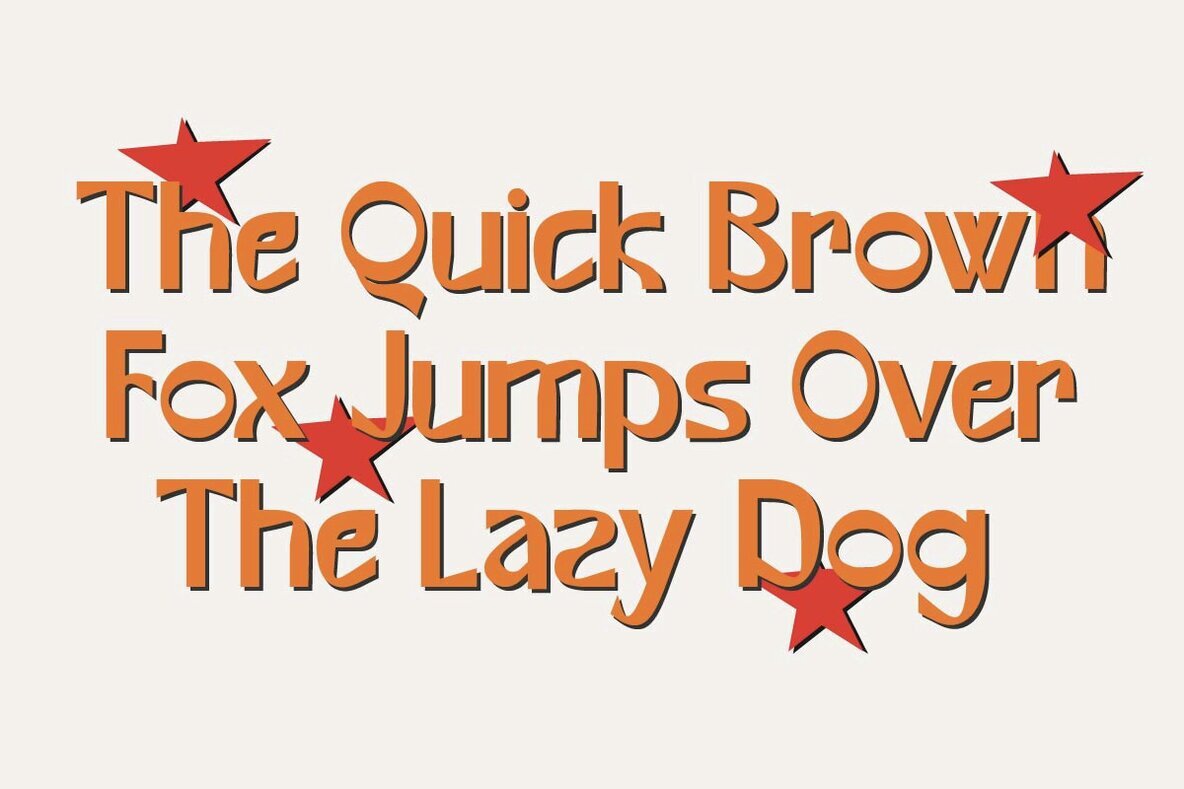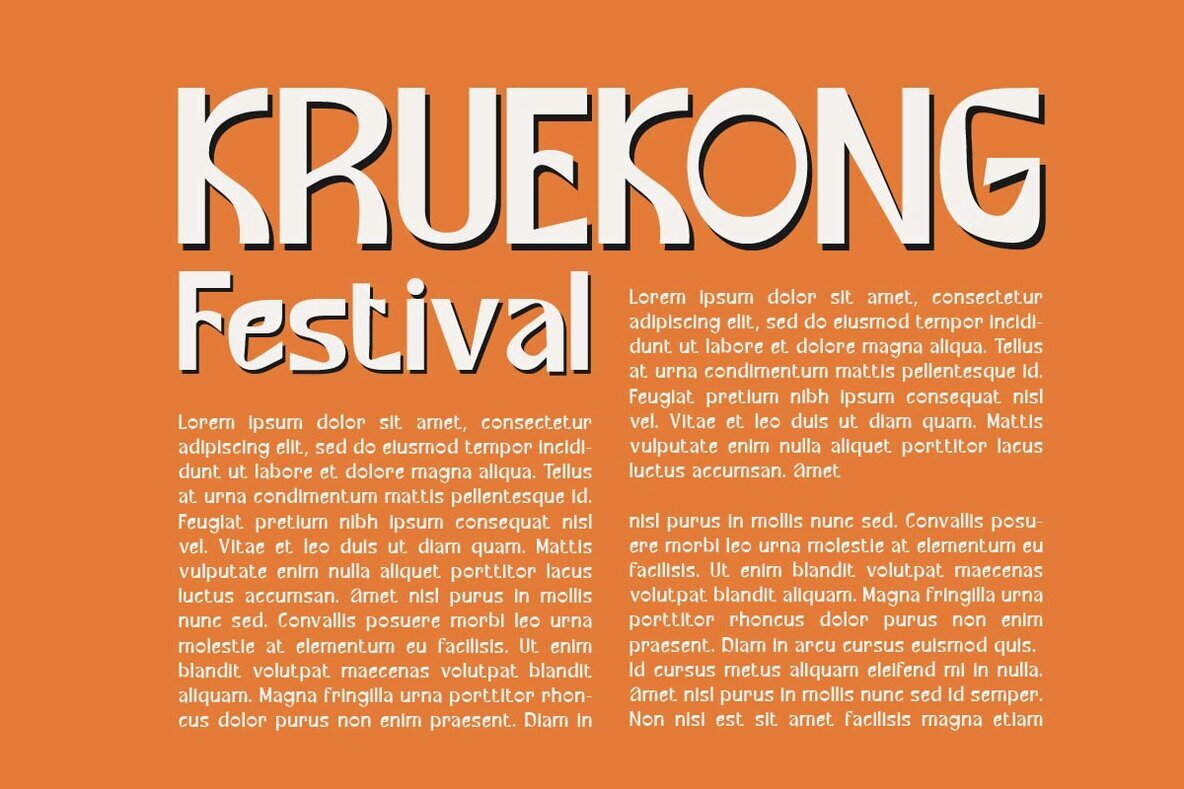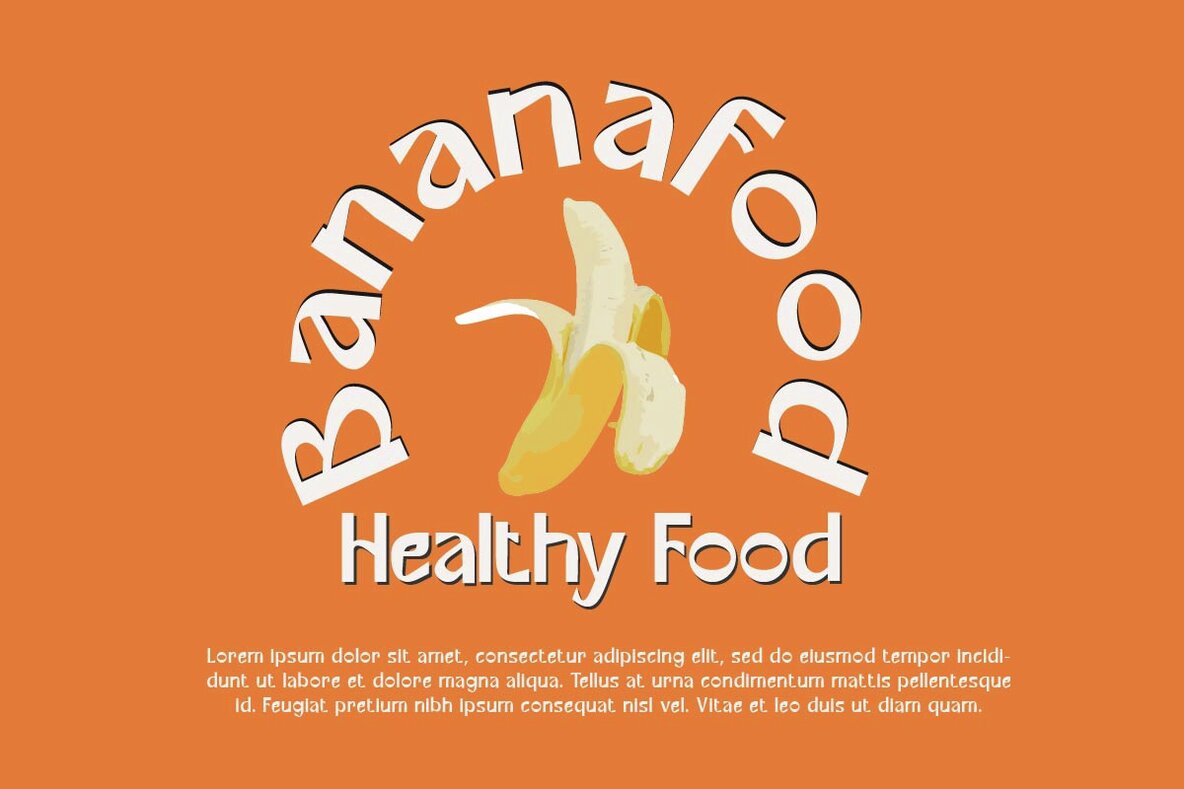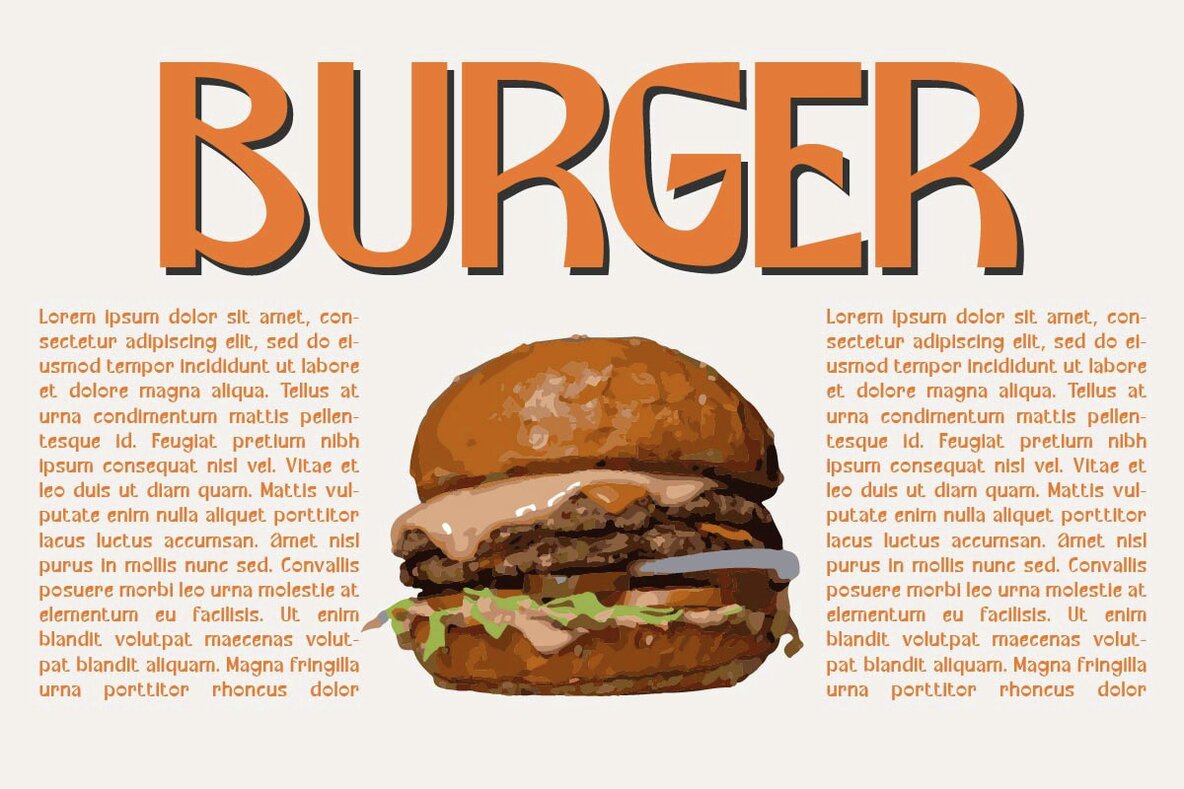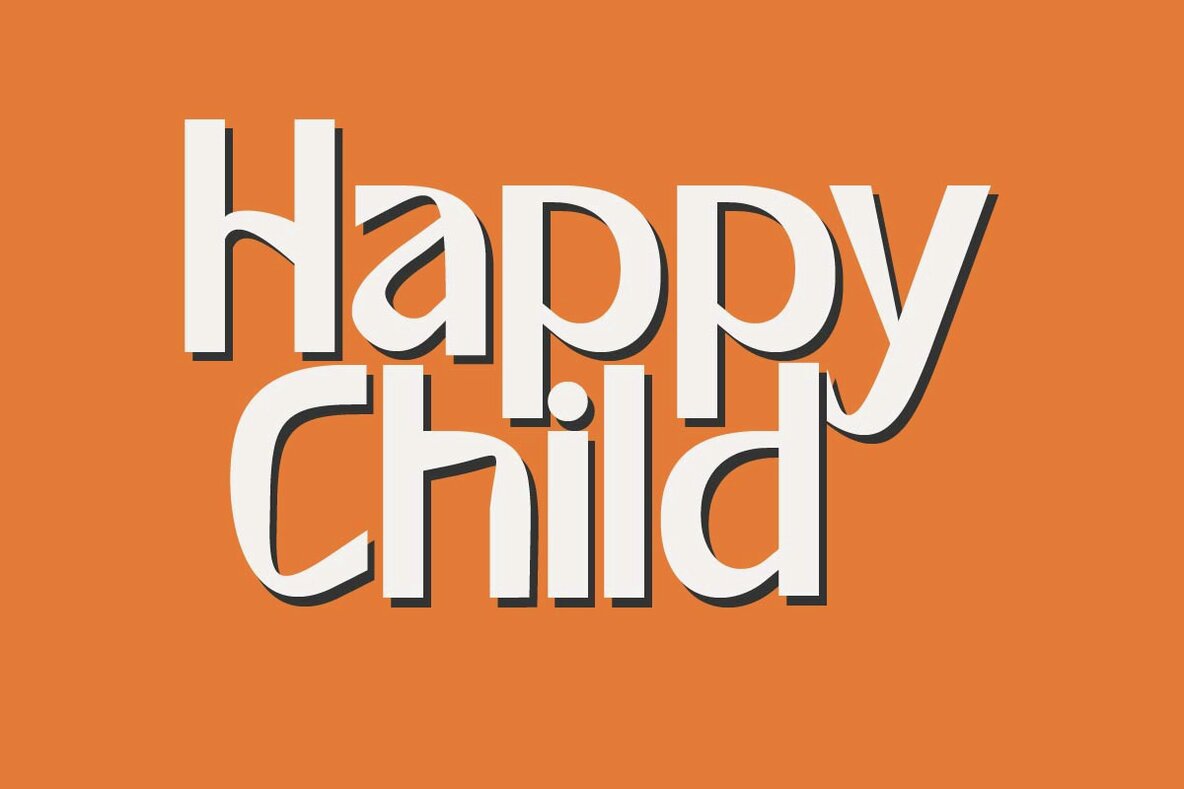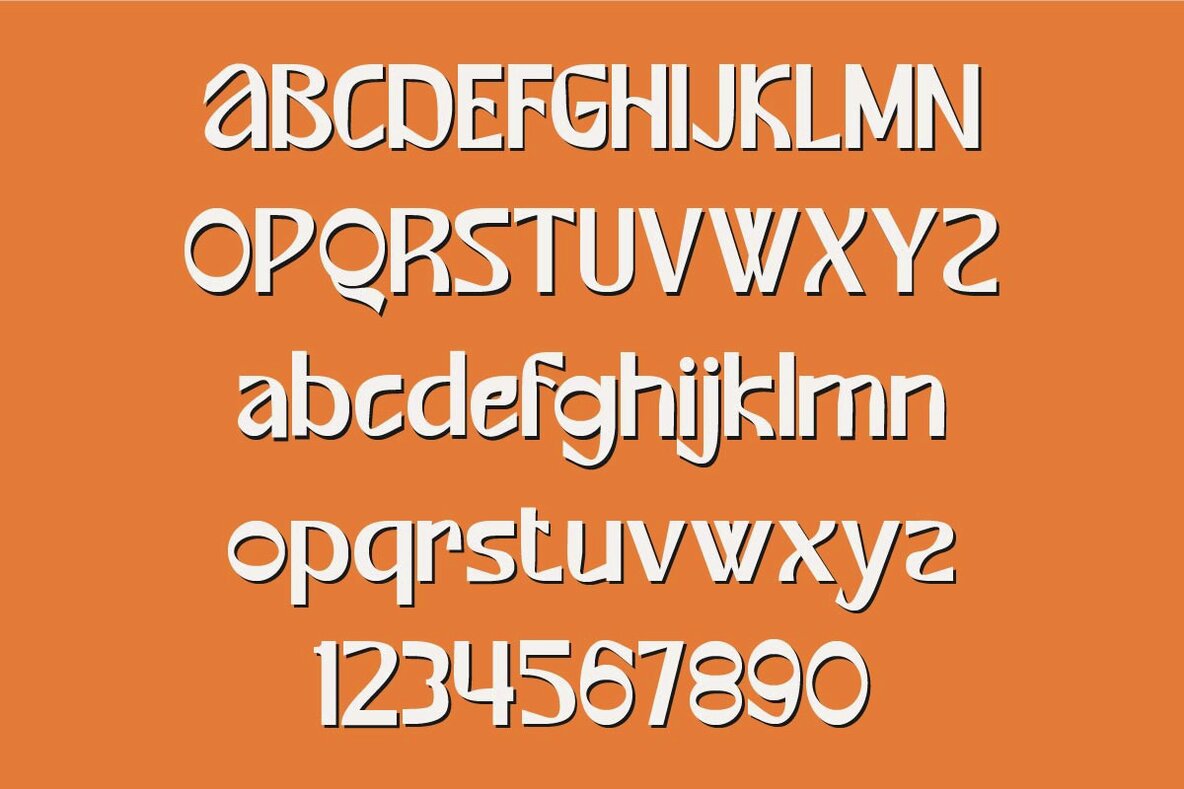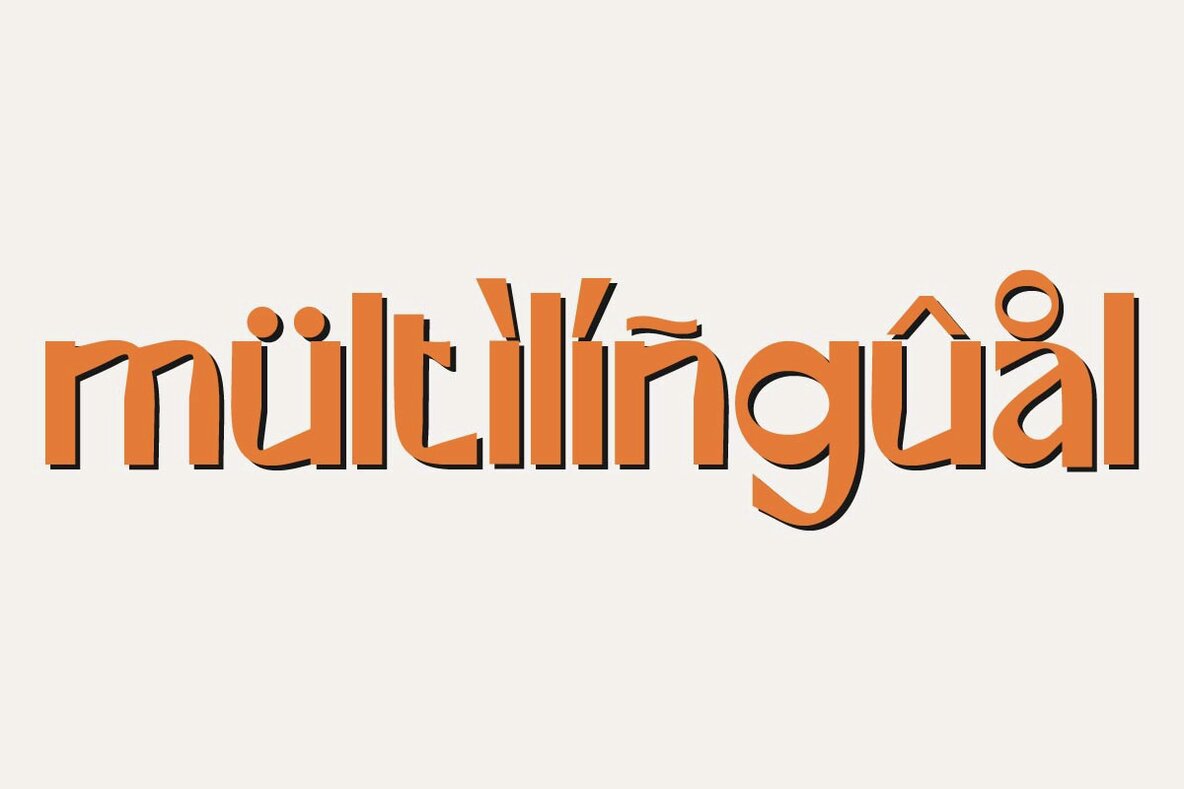
Grasher Font
Grasher Regular
Grasher by Muksal Creative is a modern display font known for its versatility and special glyphs. With multilingual support and ornamental features, this font excels in both large and small sizes, making it a prime choice for diverse design applications. Whether you're working on editorial projects, logo designs, clothing branding, product packaging, or magazine headers, Grasher delivers an elegant and stylish text overlay for any background image.Grasher: Versatile Modern Display Font with Special Glyphs